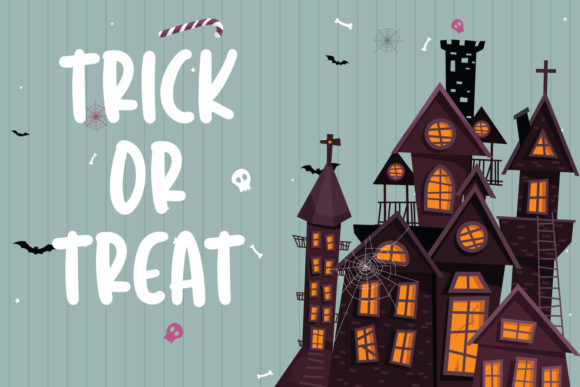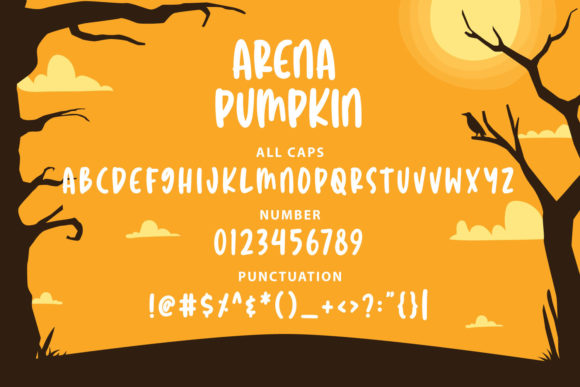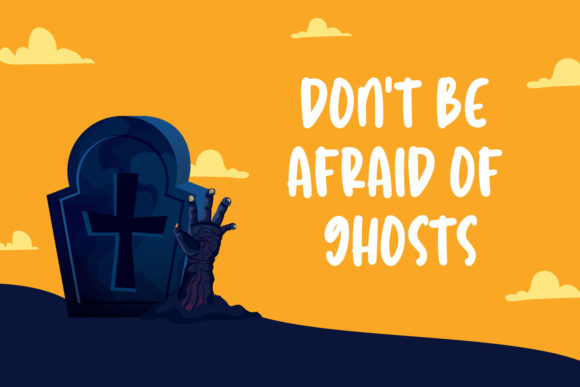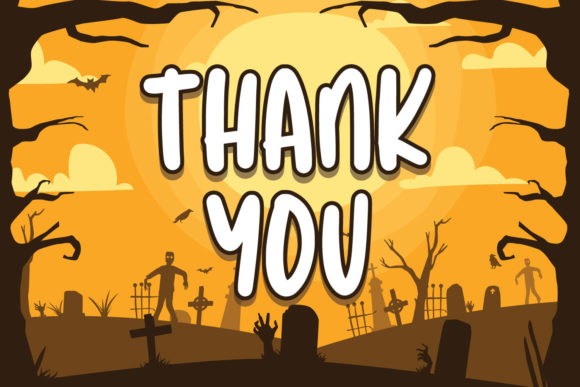
Introducing Arena Pumpkin Font: The Ultimate Addition to Your Creative Arsenal
Are you a designer, crafter, or DIY enthusiast looking for a font that can add a touch of playfulness and whimsy to your projects? Look no further than the Arena Pumpkin Font! This cool and playful handwritten font is perfect for a wide range of creative endeavors, from crafting and scrapbooking to graphic design and digital art.
What Makes Arena Pumpkin Font So Special?
Arena Pumpkin Font is a unique and eye-catching typeface that is sure to make your projects stand out from the crowd. Its playful, handwritten style is reminiscent of childhood trick-or-treating and autumnal festivities, making it the perfect choice for seasonal designs and crafts. But its versatility extends far beyond the holiday season, and it can be used with great effect in a wide range of creative contexts.
Key Features of Arena Pumpkin Font
- Playful and Whimsical: Arena Pumpkin Font is a fun and lively typeface that adds a touch of personality to any project.
- Handwritten Style: The font’s handwritten style gives it a personal and organic feel that’s perfect for crafts, DIY projects, and digital art.
- Highly Versatile: Arena Pumpkin Font can be used in a wide range of creative contexts, from graphic design and digital art to crafting and scrapbooking.
How to Use Arena Pumpkin Font in Your Projects
Adding Arena Pumpkin Font to your creative projects is a breeze. Here are a few ideas to get you started:
- Crafting and Scrapbooking: Use Arena Pumpkin Font to add a playful touch to your scrapbook pages, DIY crafts, and handmade cards.
- Graphic Design: Add a whimsical touch to your graphic designs, logos, and branding materials with this unique and eye-catching font.
- Digital Art: Use Arena Pumpkin Font to add a personal touch to your digital art, illustrations, and mixed media projects.
- Seasonal Designs: Make the most of the holiday season with Arena Pumpkin Font, perfect for creating festive designs, invitations, and decorations.
Tips and Tricks for Getting the Most Out of Arena Pumpkin Font
To get the most out of Arena Pumpkin Font, here are a few tips and tricks to keep in mind:
- Experiment with Colors: Try pairing Arena Pumpkin Font with a range of autumnal colors, such as orange, yellow, and red, to create a festive and seasonal look.
- Mix and Match: Combine Arena Pumpkin Font with other fonts and textures to create a unique and eye-catching design.
- Play with Size: Experiment with different font sizes to create visual interest and add emphasis to your designs.